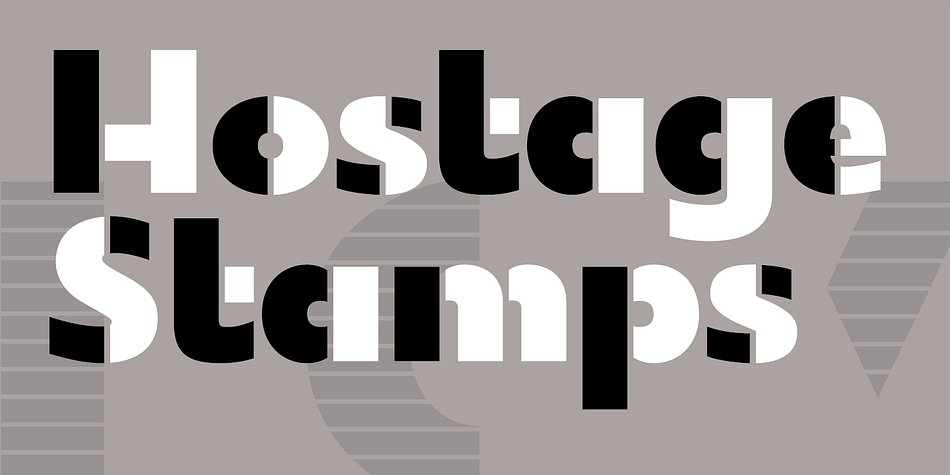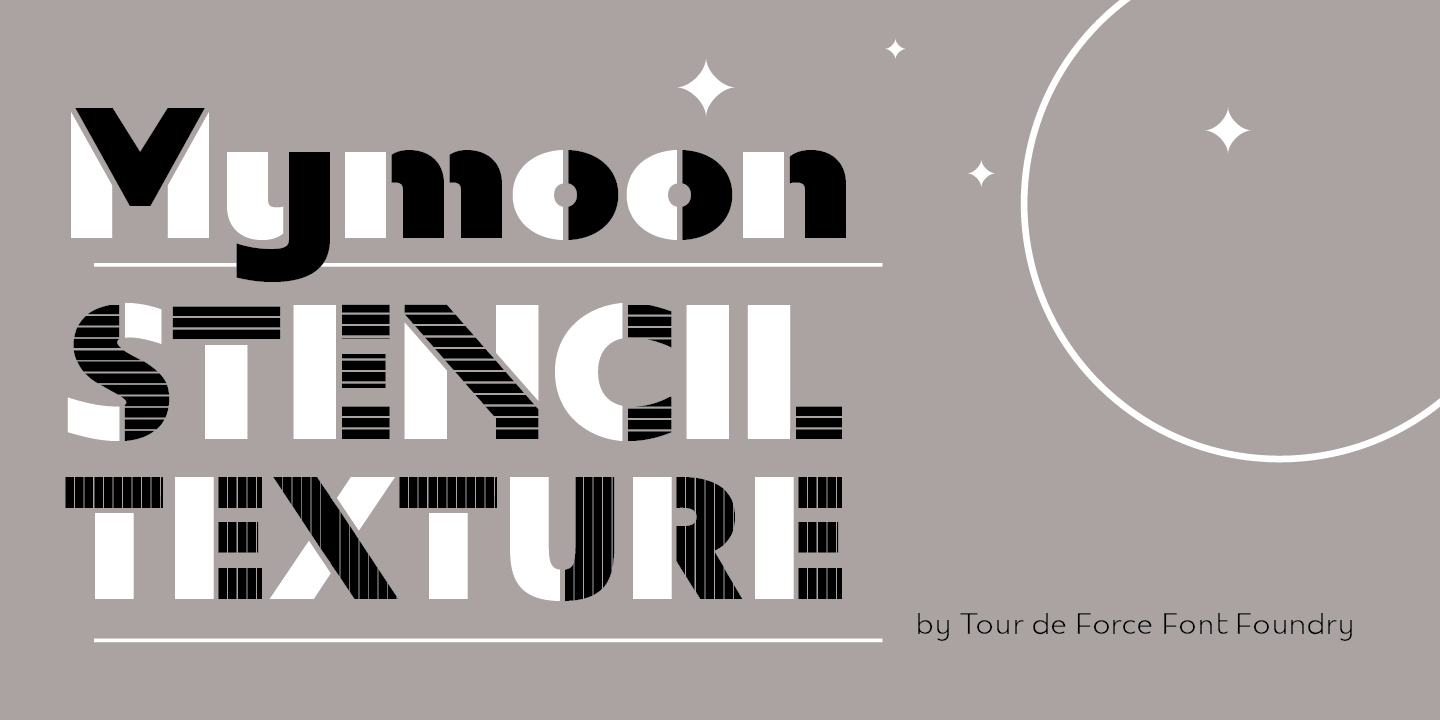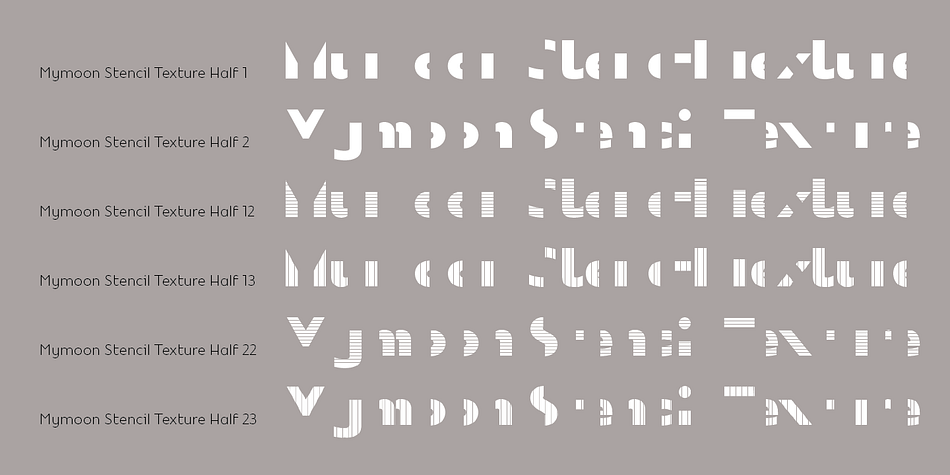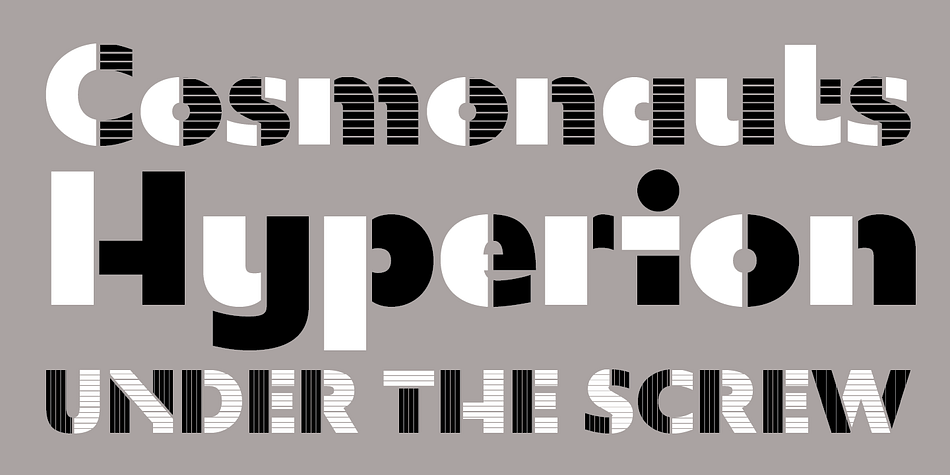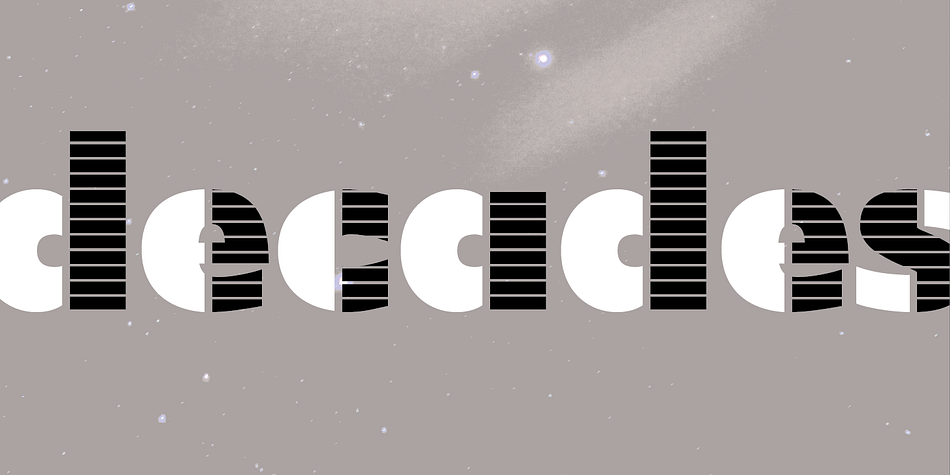
Designed by Dusan Jelesijevic, Mymoon Stencil Texture is a display sans font family. This typeface has six styles and was published by Tour de Force Font Foundry.
Mymoon Stencil Texture is an extension of Mymoon Stencil font family. It comes in 6 styles, 3 for each half of the font file. Contains extended Latin character set with OT features such as OldStyle and Tabular numerals and fractions.